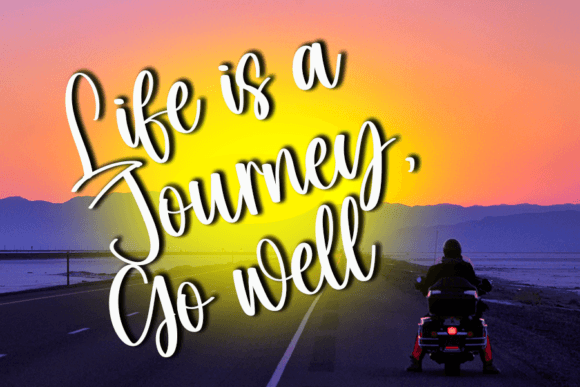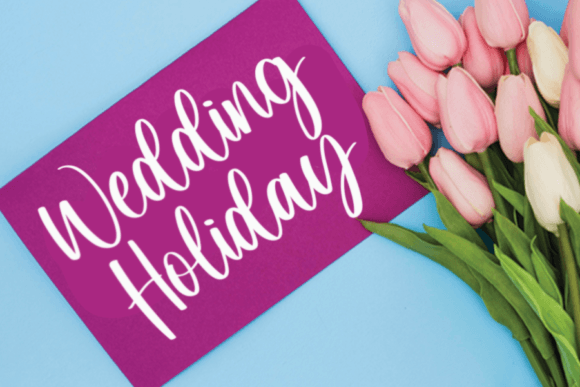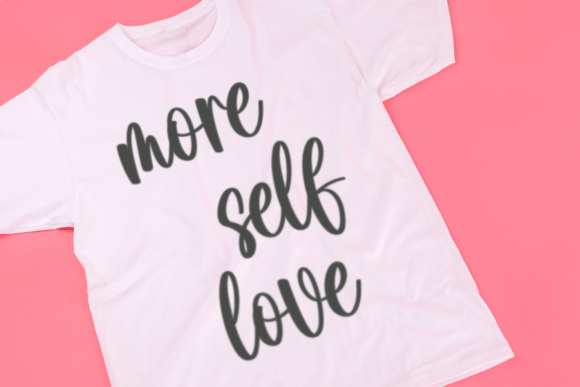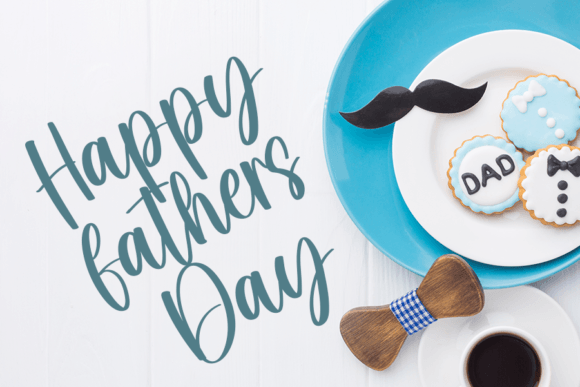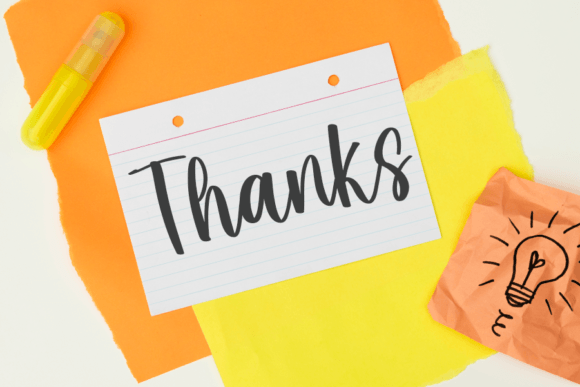
Introducing Amsterdam Font: Elevate Your Designs with Elegance and Class
Are you a designer or crafter looking for a font that exudes sophistication and style? Look no further than Amsterdam Font, a trendy handwritten font that brings a contemporary atmosphere and impeccable form to your design projects. Inspired by timeless classic calligraphy, Amsterdam Font is the perfect addition to any designer’s toolkit.
The Inspiration Behind Amsterdam Font
Amsterdam Font draws inspiration from the art of classic calligraphy, where the beauty of handwritten script meets modern typography. The result is a font that is both elegant and approachable, with a unique character that sets it apart from more traditional fonts. Whether you’re working on a logo, branding project, or simply looking for a stylish font for your craft projects, Amsterdam Font is sure to impress.
Key Features of Amsterdam Font
- Trendy and Contemporary: Amsterdam Font boasts a modern and fresh feel, making it perfect for designers and crafters who want to stay on-trend.
- Elegant and Classy: With its roots in classic calligraphy, Amsterdam Font brings a level of sophistication and elegance to any design project.
- Handwritten with Love: Each letterform has been carefully crafted to ensure a personal and human touch, making it perfect for projects where personality matters.
- Impeccable Form: Amsterdam Font features precise and clean lines, ensuring that your designs always look polished and professional.
Uses for Amsterdam Font
Amsterdam Font’s versatility makes it suitable for a wide range of design projects, including:
- Logo Design: Create a lasting impression with a custom logo that showcases your brand’s personality and style.
- Branding and Packaging: Elevate your brand’s visual identity with Amsterdam Font, perfect for business cards, letterheads, and product packaging.
- Stationery and Invitations: Add a touch of elegance to your stationery, invitations, and greeting cards.
- Craft Projects: From scrapbooking to DIY crafts, Amsterdam Font is the perfect choice for adding a personal and stylish touch.
Why Choose Amsterdam Font?
With so many fonts available, why choose Amsterdam Font? Here are just a few reasons:
- Unique and Distinctive: Amsterdam Font stands out from the crowd, offering a fresh alternative to more traditional fonts.
- Easy to Read: Despite its elegant nature, Amsterdam Font remains highly legible, making it perfect for body text and headlines.
- Customizable: With its wide range of applications and uses, Amsterdam Font can be tailored to suit your specific design needs.
Amsterdam Font is a game-changer for designers and crafters looking to elevate their designs with elegance and class. Its unique blend of classic calligraphy and modern typography makes it the perfect addition to any design project. Whether you’re working on a professional project or a personal craft, Amsterdam Font is sure to impress. So why wait? Discover the beauty of Amsterdam Font today and take your designs to the next level.